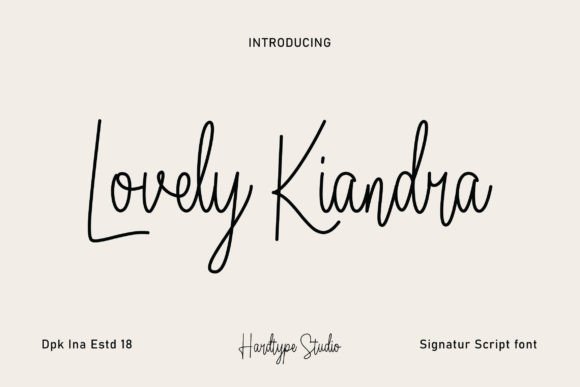
Introducing the Lovely Kiandra Font - A Timeless Masterpiece of Elegance and Charm!
Step into the realm of enchanting aesthetics with the Lovely Kiandra Font, a script font that exudes timeless beauty and captivating charm. This exquisite creation by Hardtype is a symphony of flowing strokes and graceful curves, meticulously crafted to bring an air of sophistication to your creative projects.
Unlock the magic of this signature script font and immerse yourself in a world of possibilities. With its playful and inviting personality, Lovely Kiandra is the perfect companion for wedding invitations, greeting cards, logos, branding, social media graphics, and any project that demands a touch of elegance and whimsy.
Imagine your words dancing across the page, rendered in the enchanting characters of Lovely Kiandra. Each letter is a work of art, flowing seamlessly into the next, creating a mesmerizing visual experience that captivates the senses.